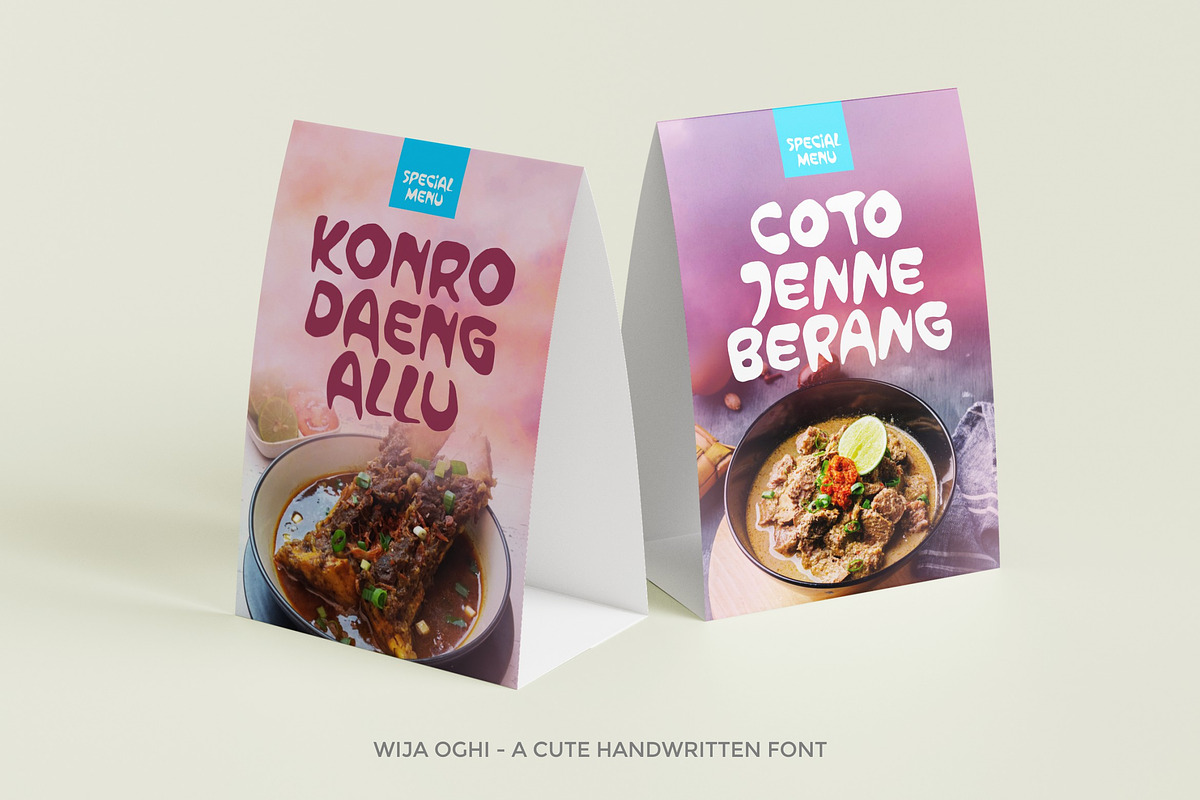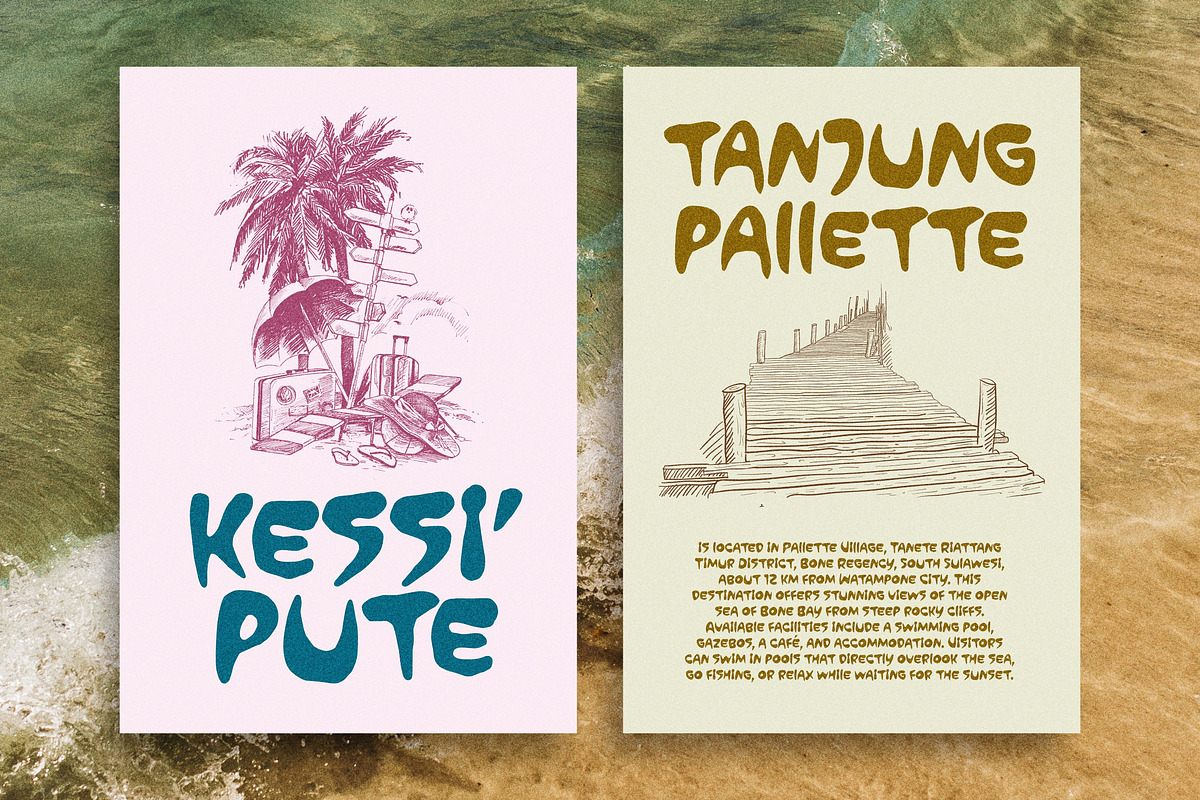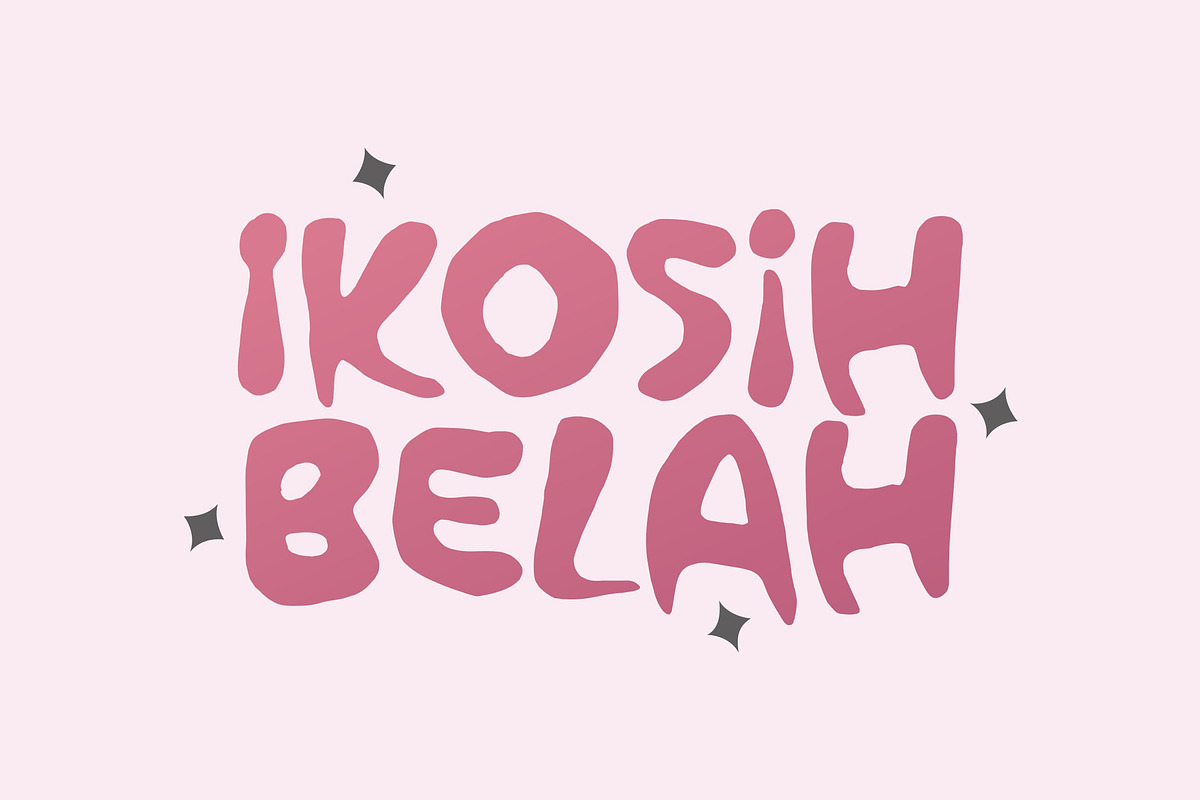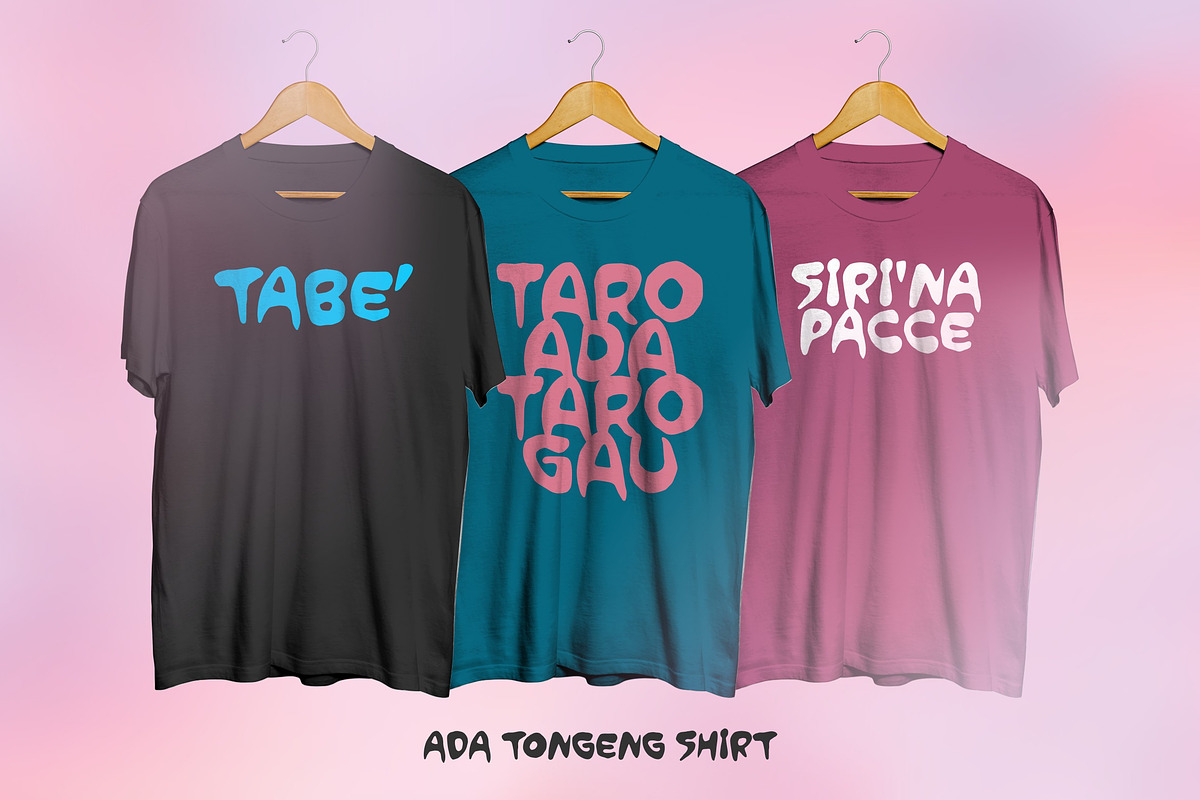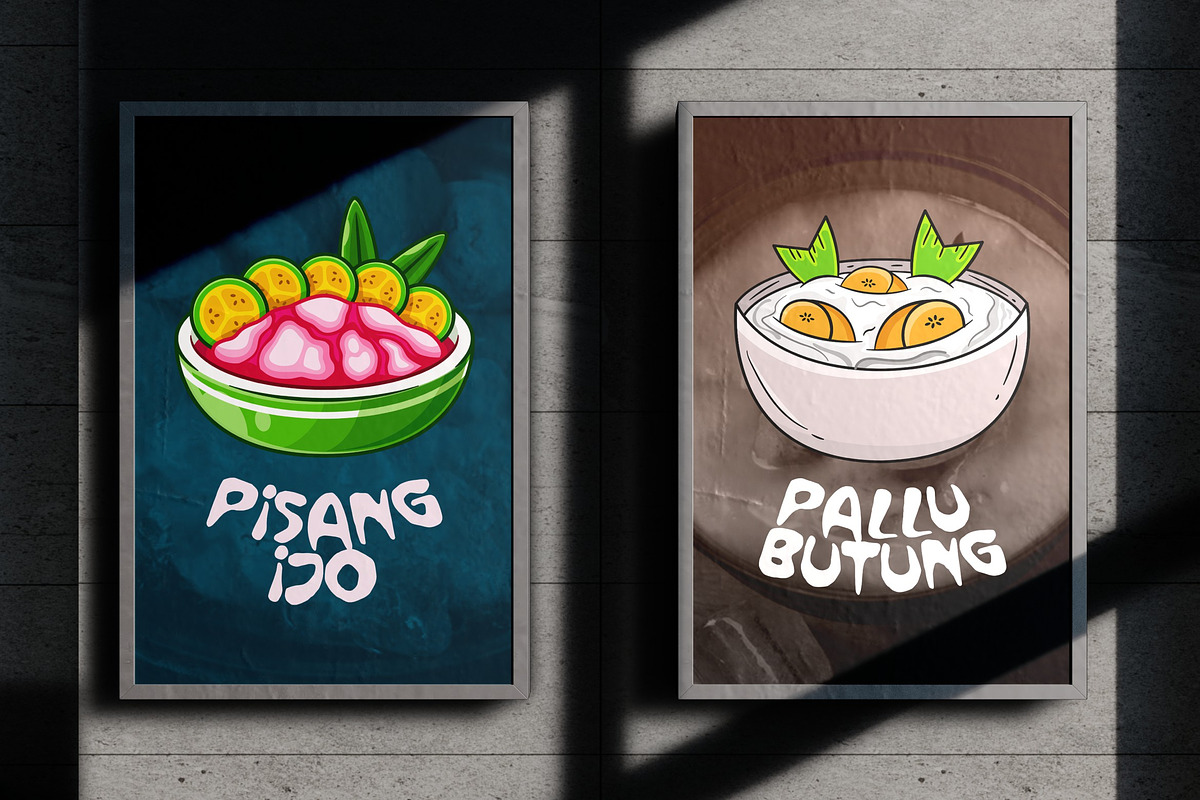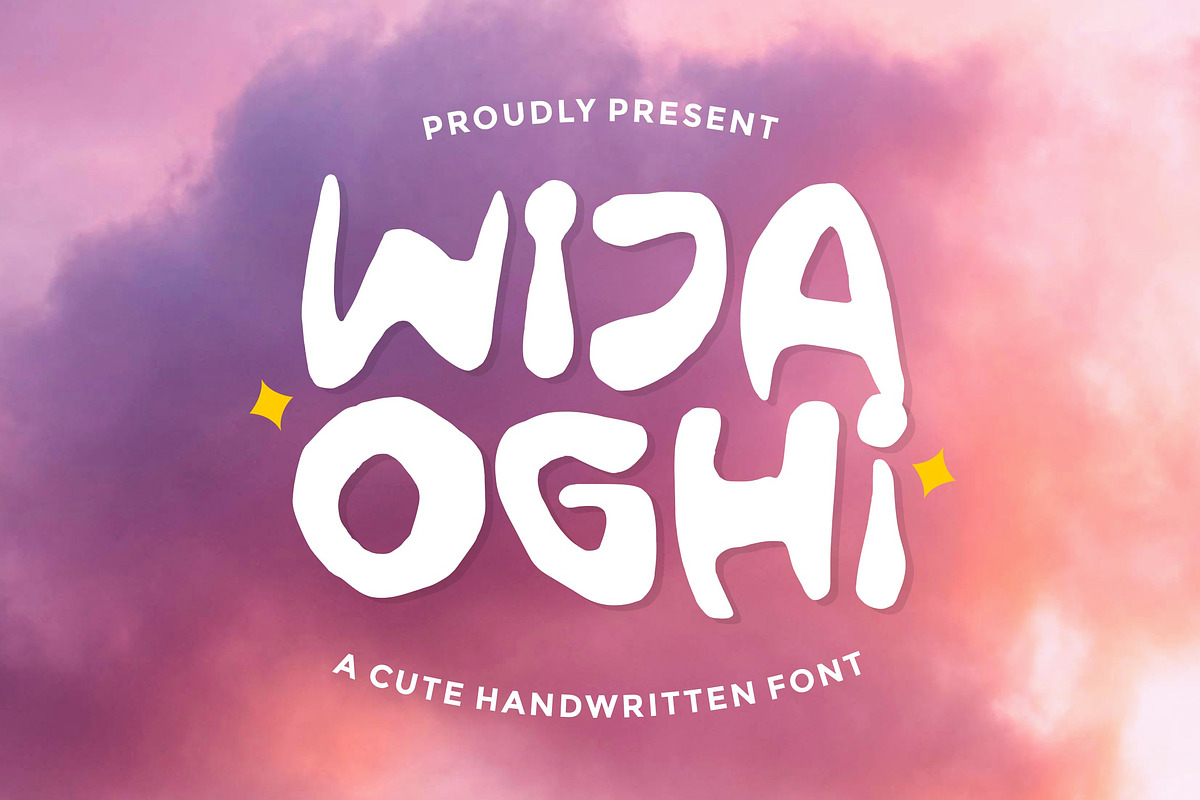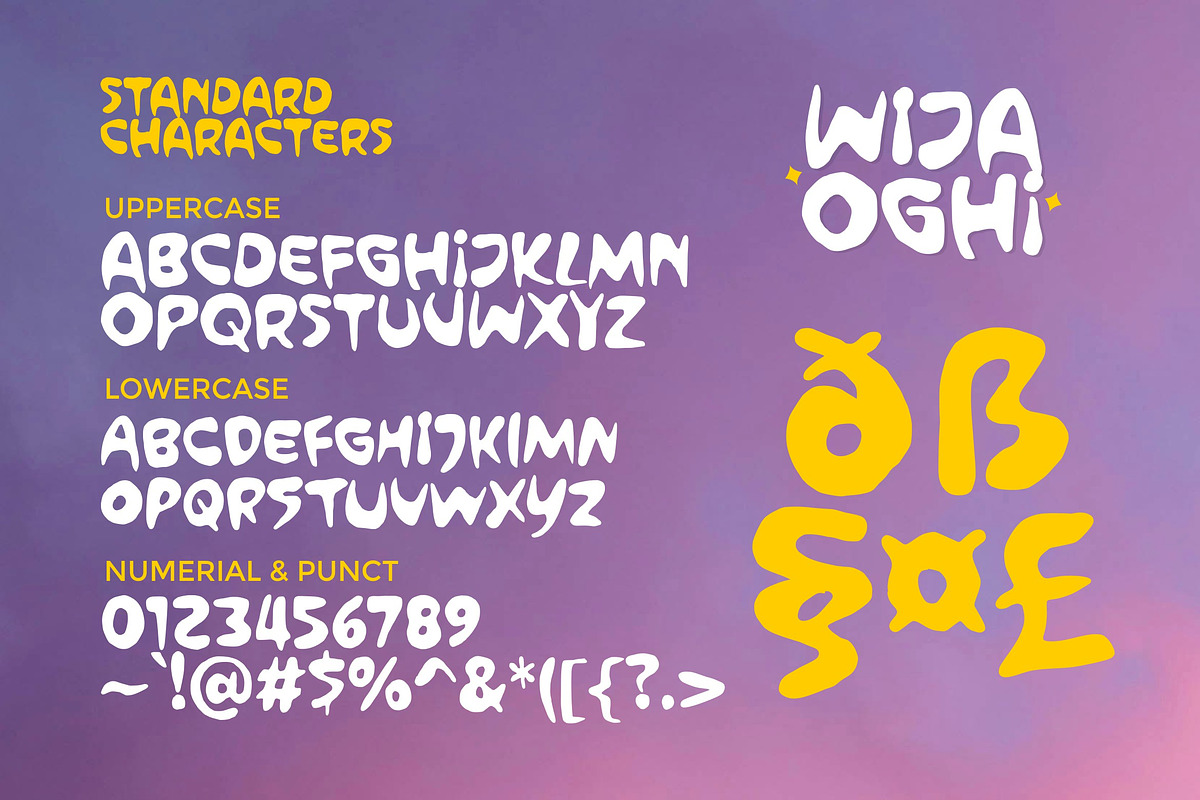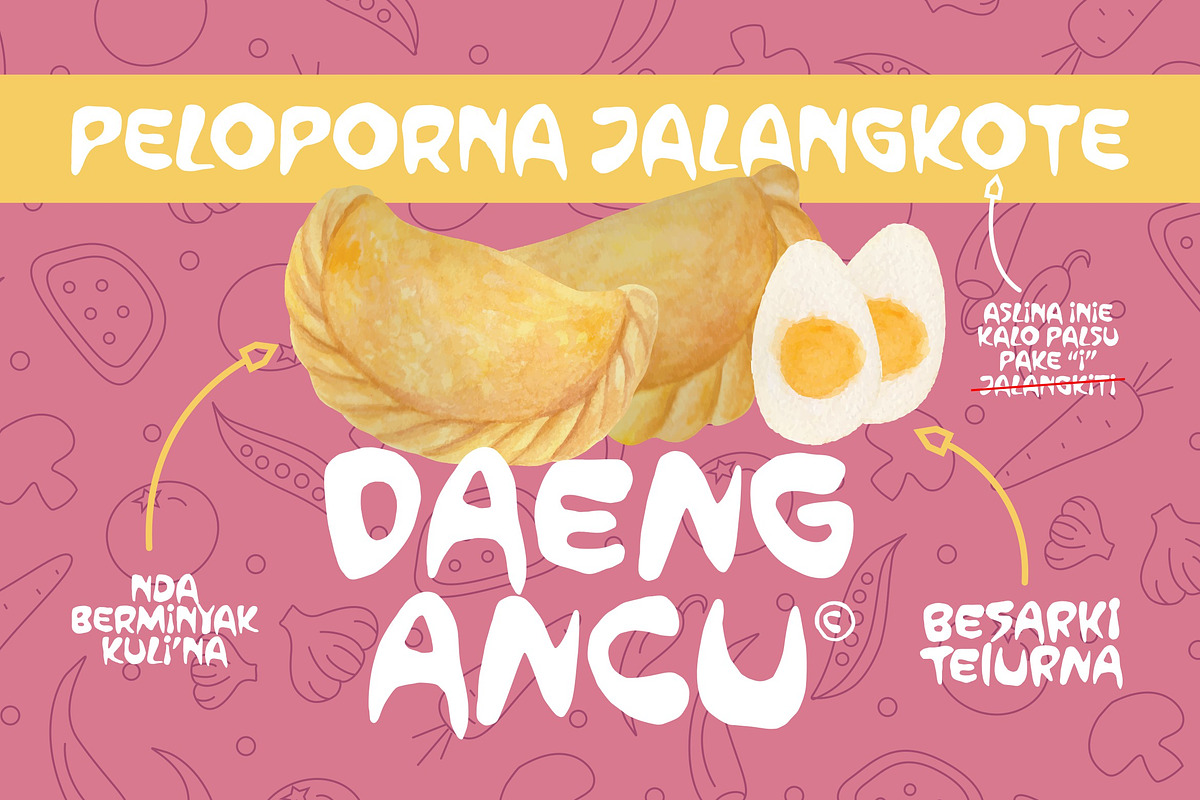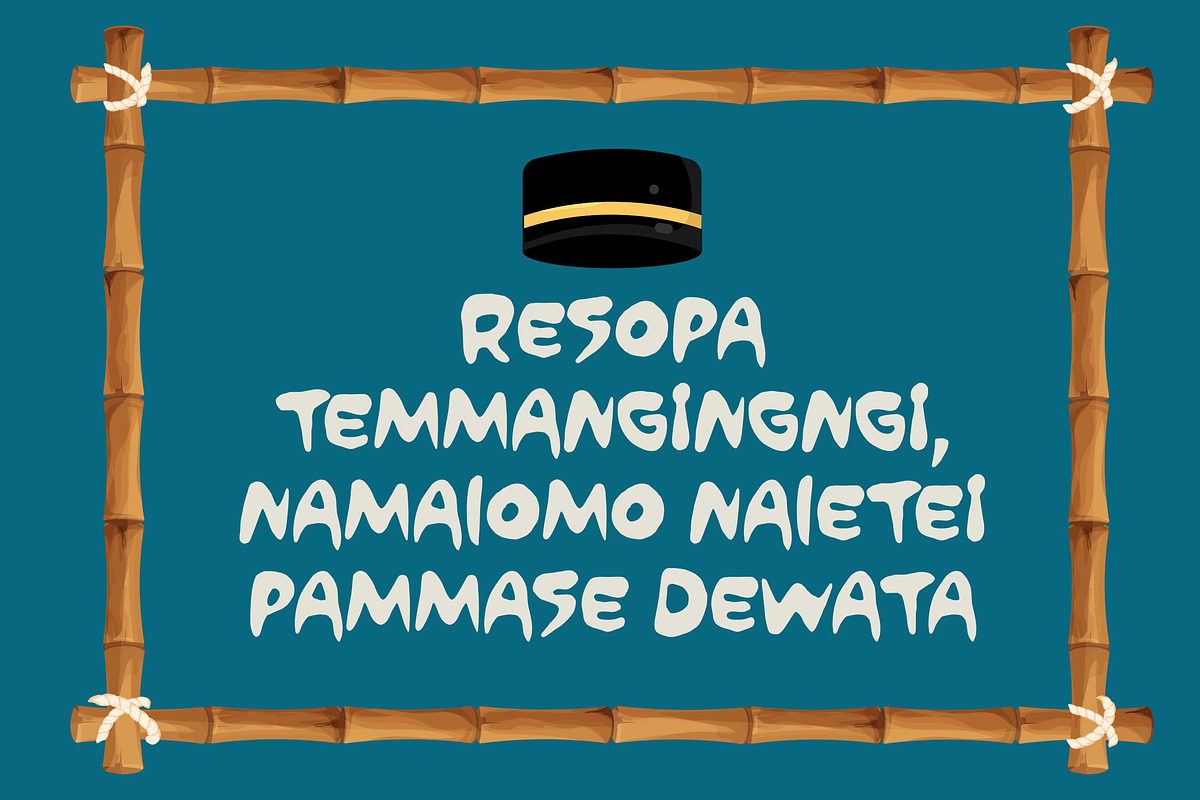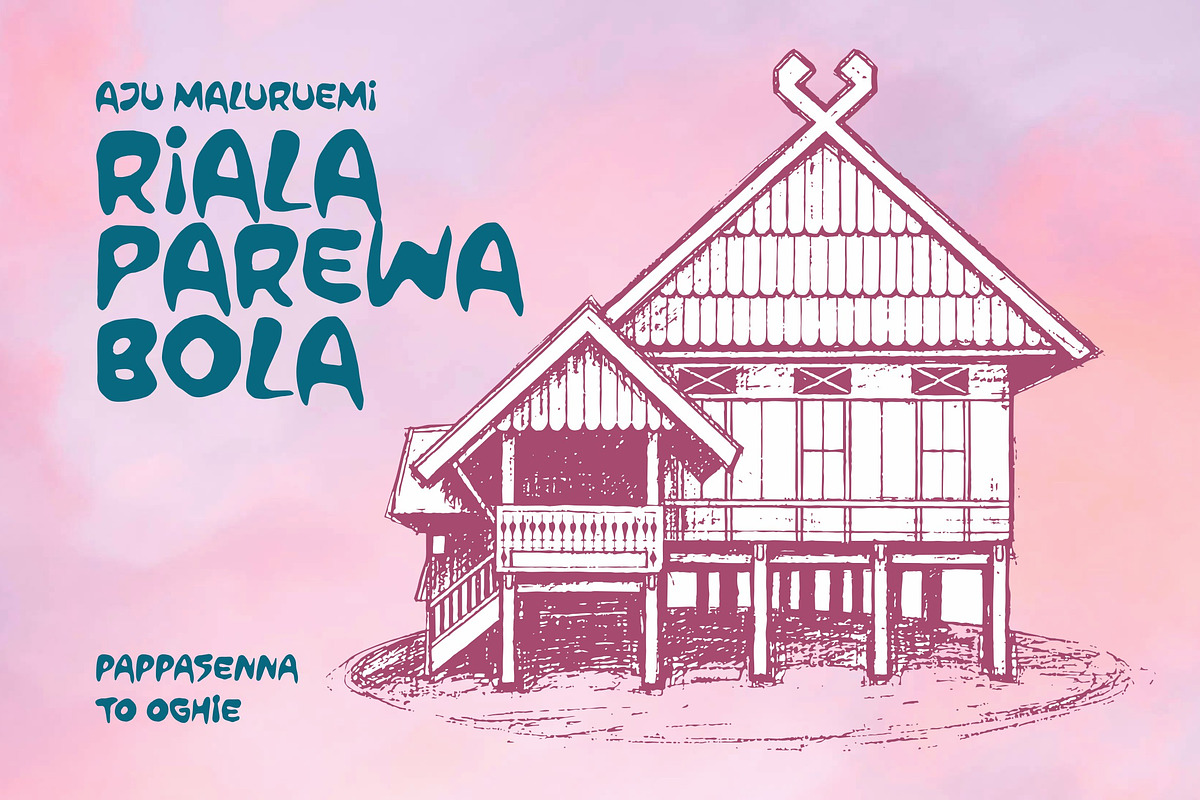
Wija Oghi - Cute Handwritten
Wija Oghi is a cute and playful handwritten font designed to bring warmth and charm to your creative projects. With its soft, rounded shapes and organic strokes, it creates a friendly and approachable feel that instantly captures attention.
Perfect for kids-themed designs, branding, social media, packaging, and creative layouts, this font adds a touch of fun and personality to any work. Its natural handwritten style makes every word feel lively, cheerful, and full of character.